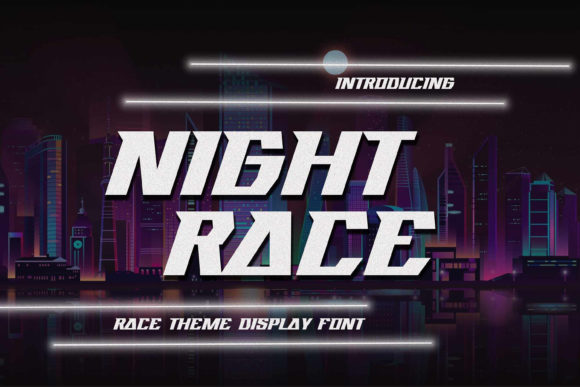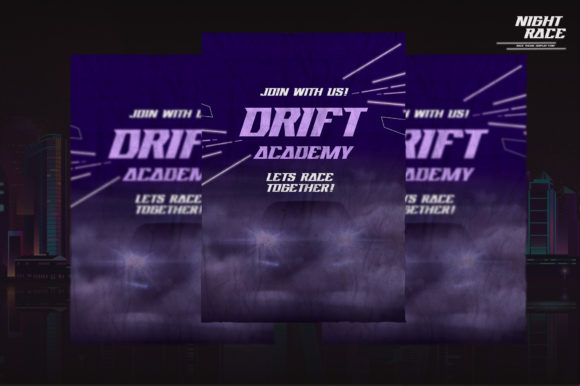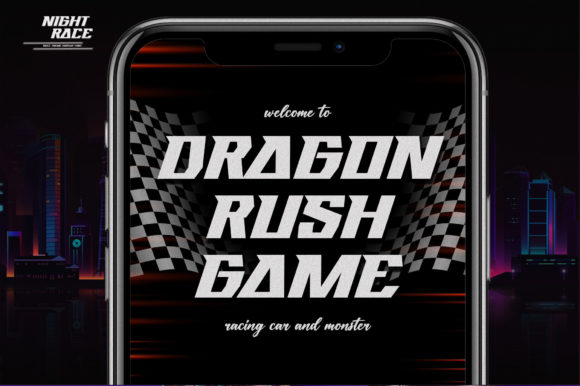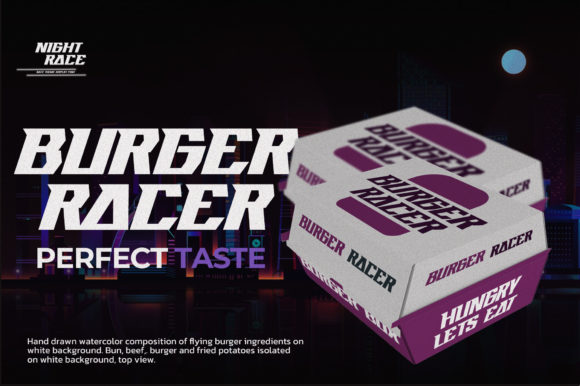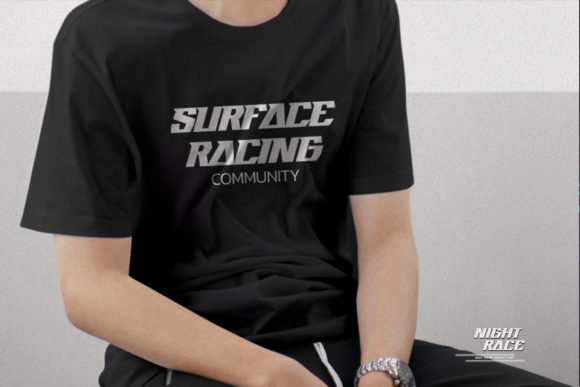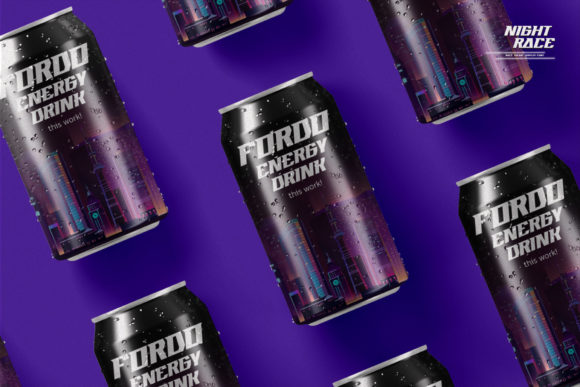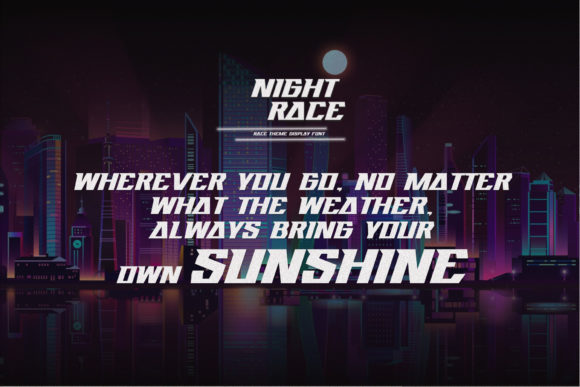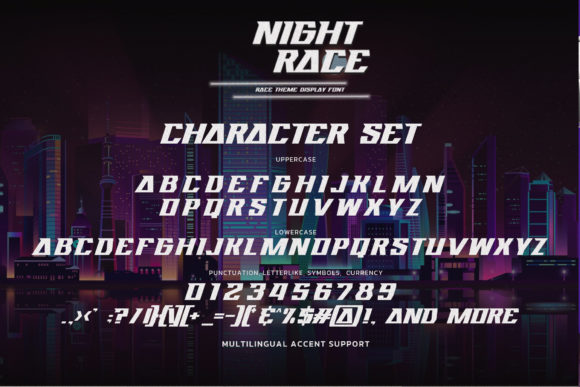
Nightrace
Nightrace: A Race-Themed Slab Serif Font
Nightrace is a race-themed slab serif font with a modern look and stylish characters. This font is perfect for designing templates, brochures, videos, advertising, branding, logos, and more. Its sporty nuances make it ideal for printed quotes, invitations, cards, product packaging, headers, logotypes, letterheads, posters, labels, and other creative projects. Crafted manually with love and passion, Nightrace will add a dynamic touch to your designs.
Key Features of Nightrace
• Race-Themed Design: Offers a dynamic and energetic look suitable for sports-related applications.
• Slab Serif Structure: Features thick, rectangular serifs typical of slab serif fonts.
• Versatile Application: Ideal for both print and digital media projects.
• Modern Style: Provides a contemporary aesthetic that enhances visual appeal.
Ideal Uses for Nightrace
Nightrace’s unique characteristics make it particularly well-suited for:
When incorporating Nightrace into your designs, consider these tips:
• Use for headlines or short blocks of text to showcase its modern style.
• Utilize its sporty appearance across various creative projects to enhance visual appeal.
Nightrace is an excellent choice for designers looking to add a race-themed slab serif font to their typographic toolkit. Its ability to bring energy and style to various design projects makes it stand out in the world of typography. Whether you’re working on sports branding, creating layouts for magazines, or developing content that requires a touch of dynamism, Nightrace offers the perfect blend of style and functionality.
Furthermore, Nightrace’s unique design allows it to shine in various contexts. From vintage-inspired designs with a modern twist to more contemporary layouts that need a touch of uniqueness, this font can elevate your projects. Its striking yet functional style works particularly well in designs that require a thoughtful and engaging mood.
In conclusion, Nightrace is a font that truly captures the essence of creativity and impact in typography. Its ability to work well in both minimalist projects and more elaborate layouts showcases its flexibility. For those looking to add a touch of unique charm to their work, Nightrace can even enhance themed creations with its distinctive style. It’s the perfect choice for designers seeking to make a strong, stylish impact across a wide range of creative projects.